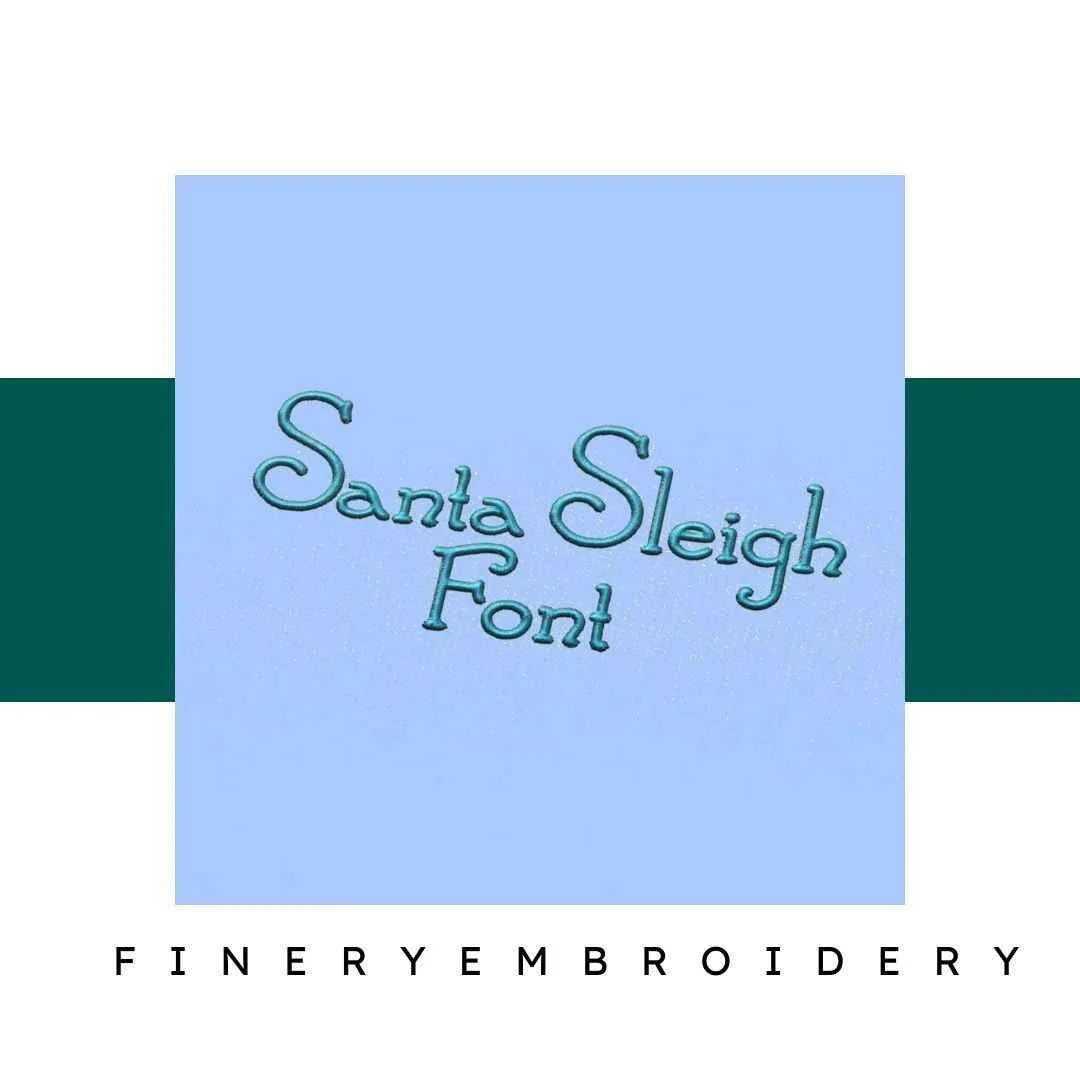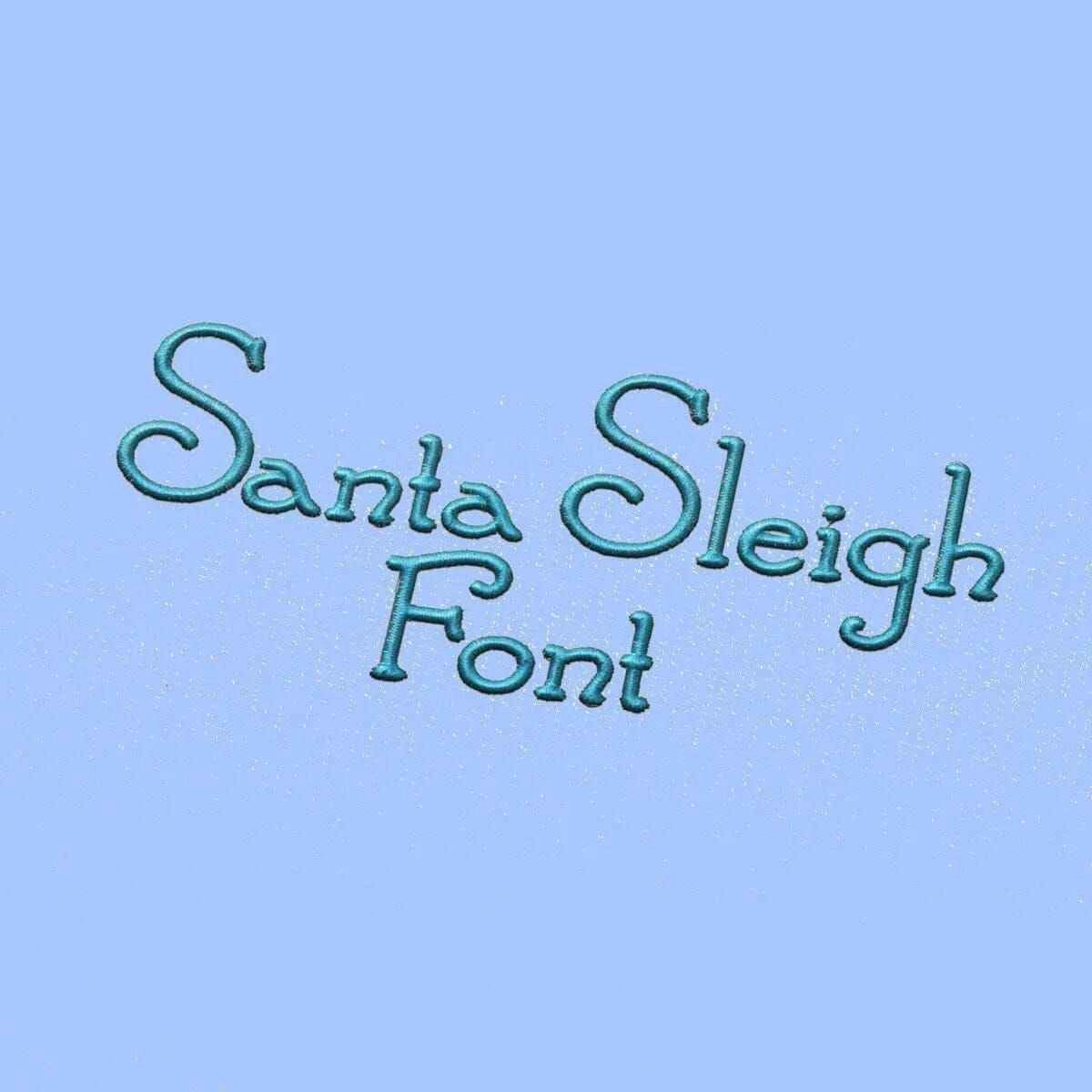
Santa Sleigh Embroidery alphabet Font Set
Transform your holiday projects with the enchanting Santa Sleigh Embroidery Alphabet Font Set – perfect for adding a festive flair to every creation!
Introducing the Santa Sleigh Embroidery Alphabet Font Set, a delightful collection designed to make your holiday crafting dreams come true! Whether you're personalizing gifts or adding festive flair to decorations, this high-quality font set makes it easy to infuse your projects with seasonal charm. Elevate your embroidery game and let your creativity shine!
Why You'll Love This Design
This stunning font set is not just about letters; it’s about creating memories. The elegant and intricate designs are crafted with meticulous attention to detail, ensuring that each letter speaks holiday cheer. With a mix of whimsical and classic elements, your creations will radiate warmth and joy, making them perfect for holiday gatherings or gifts.
Creative Applications
The versatility of the Santa Sleigh Embroidery Alphabet Font Set opens the door to endless creative possibilities! Use it to personalize stockings, create festive banners, or even design unique holiday apparel. Your imagination is the only limit! Let the letters dance across your fabric, bringing each project to life with holiday spirit.